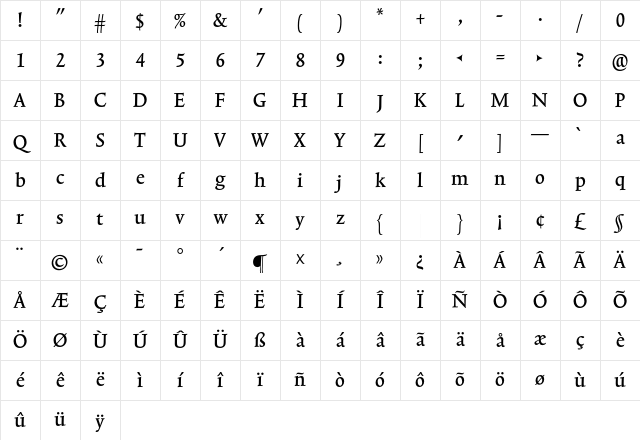
TriniteNo1 MediumCondensedTab
Style: MediumCondensedTab
TriniteNo1 Family
TriniteNo1 MediumCondensedTab
Design Context for TriniteNo1
TriniteNo1 is a composed and adaptable typeface that performs quietly and consistently across a wide range of design contexts. Its narrow stance lets it pack a punch even in space-constrained designs.